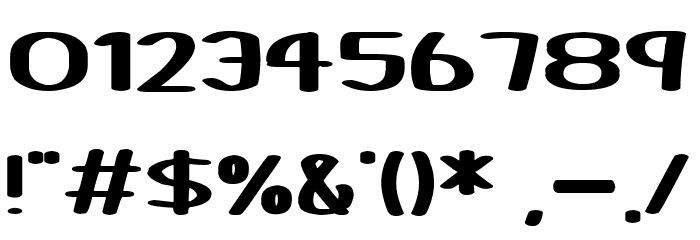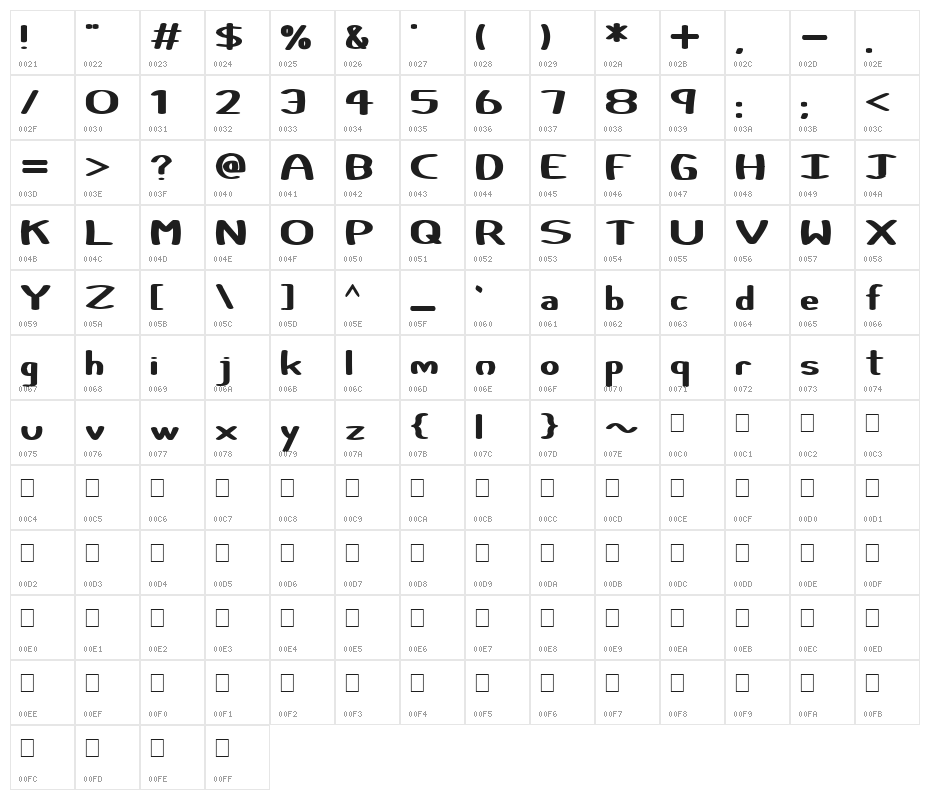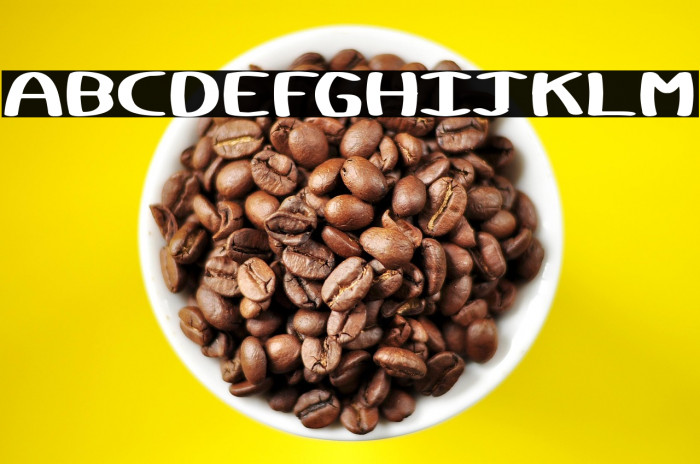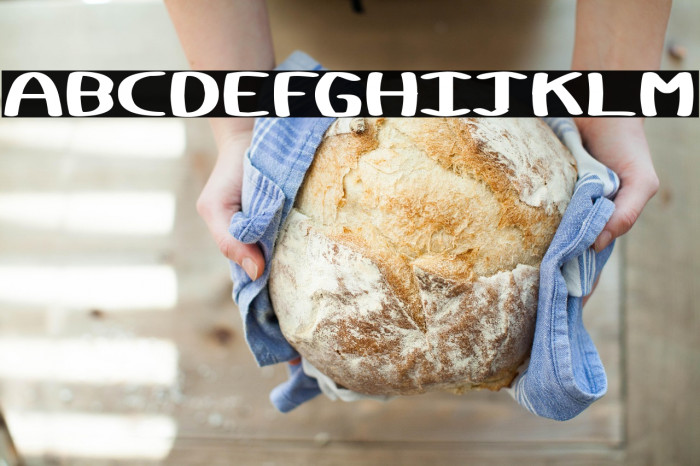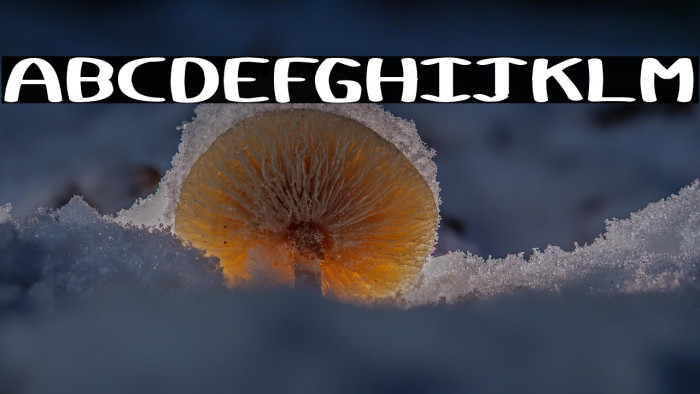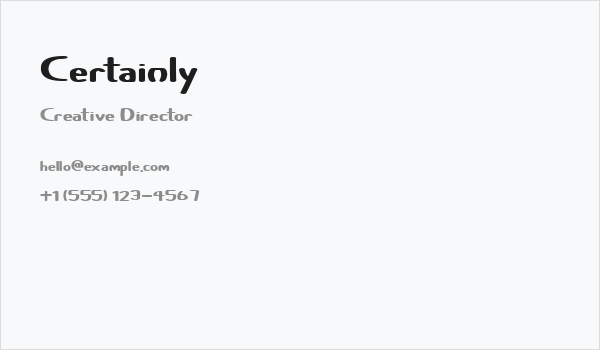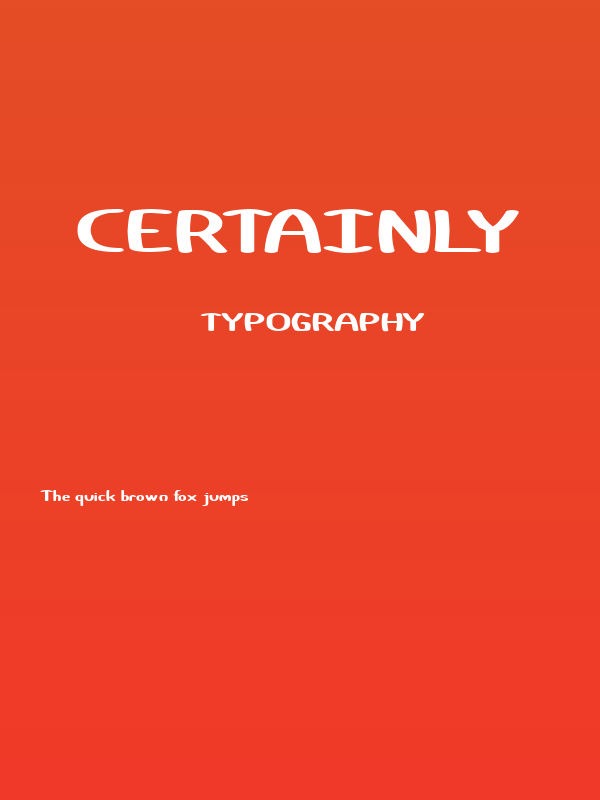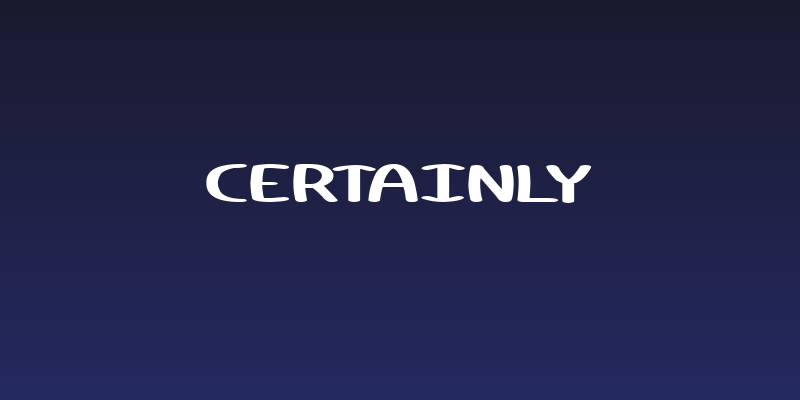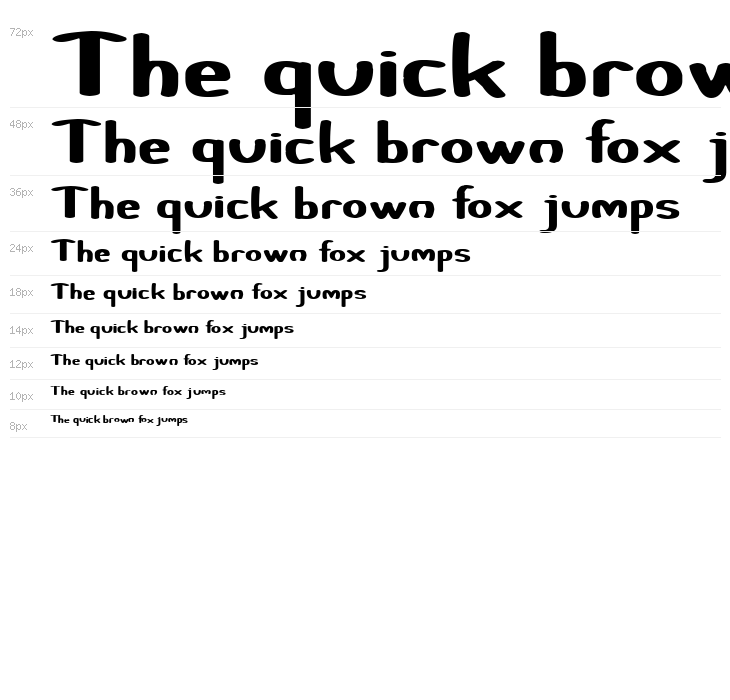
Certainly Font
Certainly Description
This font features a playful and bold style with rounded edges and a slightly irregular form, giving it a hand-drawn appearance. The uppercase and lowercase letters maintain a consistent weight, contributing to a cohesive look. The numbers and special characters follow the same design principles, ensuring uniformity across all glyphs. Its unique, informal style makes it suitable for projects that require a touch of whimsy and creativity. The font's boldness ensures readability, while its distinctive character adds personality to any design.
| Proposed Projects | Ideal for children's books, playful branding, posters, and creative invitations. |